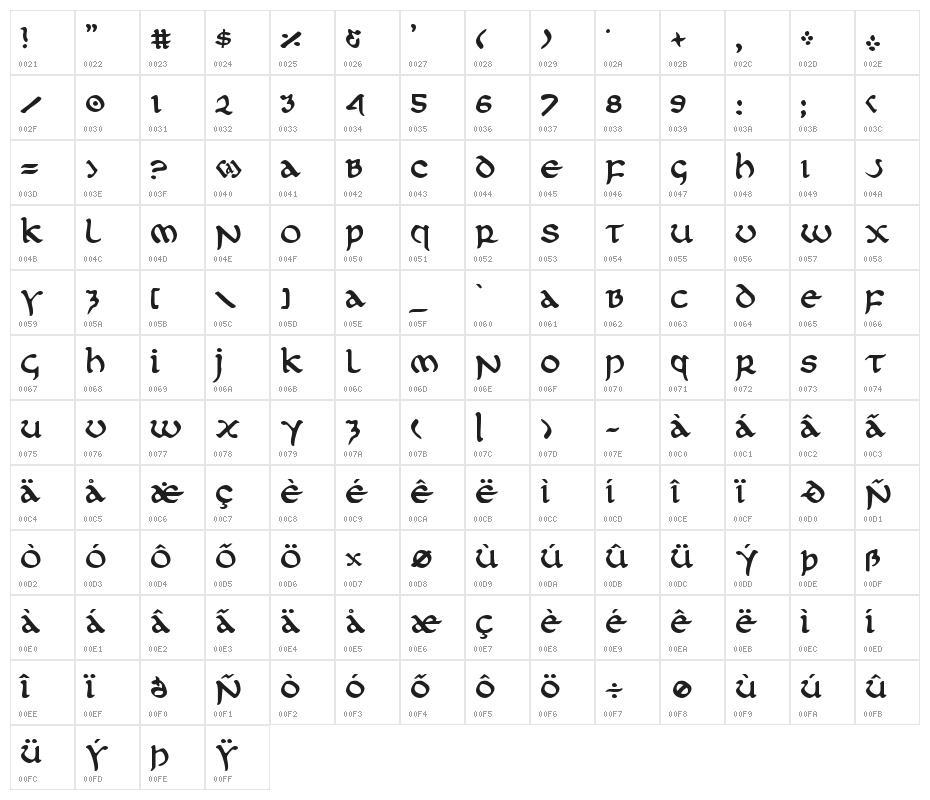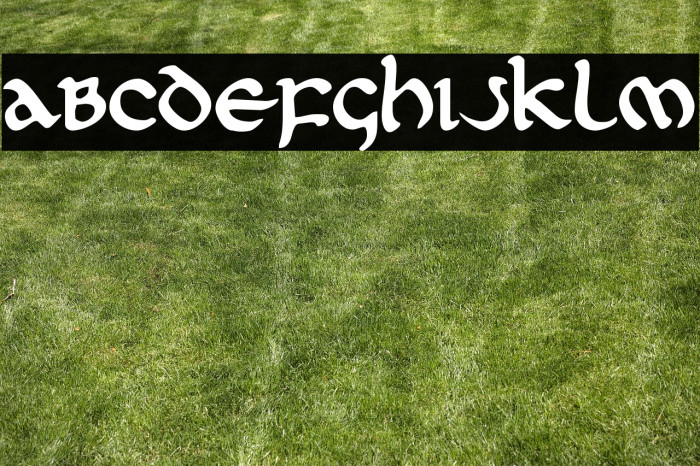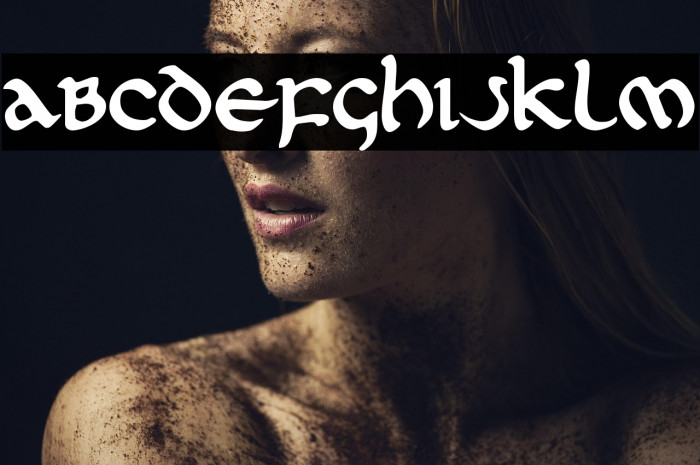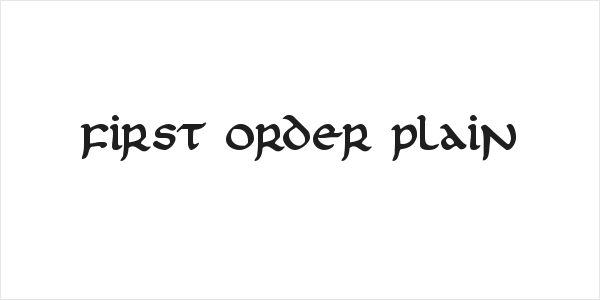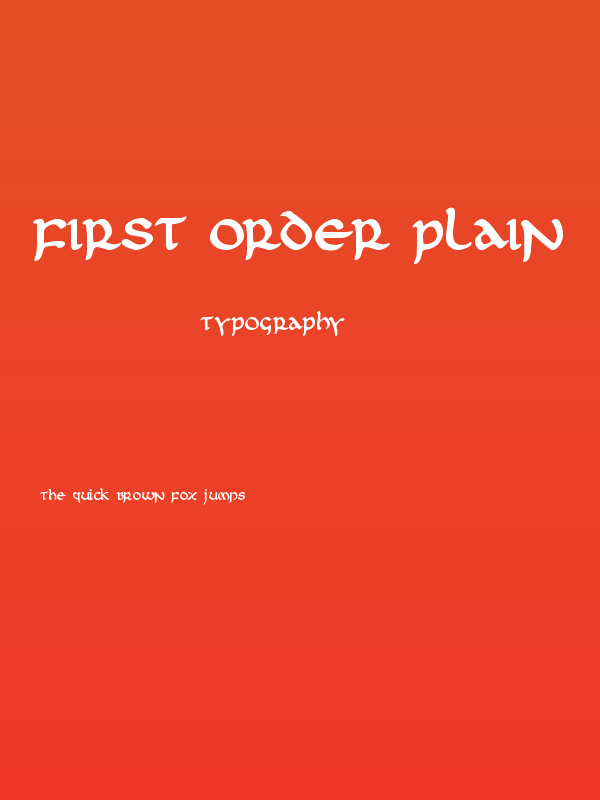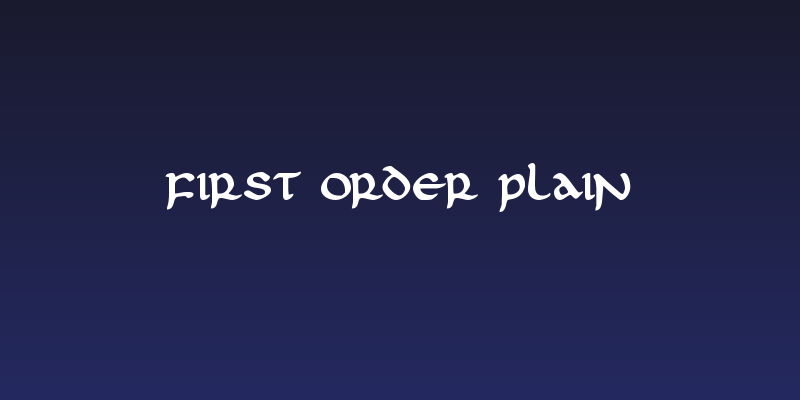
First Order Plain Font
First Order Plain Description
This font exhibits a unique blend of medieval and modern aesthetics, characterized by its bold, flowing strokes and distinctive curves. The uppercase and lowercase letters maintain a consistent style, with sharp angles and a slightly condensed form that gives it a dynamic appearance. The numerals are equally stylized, with a uniform height that complements the alphabetic characters. Special characters are crafted with the same attention to detail, ensuring a cohesive look across all glyphs. The overall design is reminiscent of calligraphic scripts, yet it retains a readability that makes it suitable for various applications.
| Width | Condensed |
| Overall Style | Vintage |
| Proposed Projects | Ideal for fantasy-themed projects, book covers, posters, and branding that requires a touch of historical elegance. |